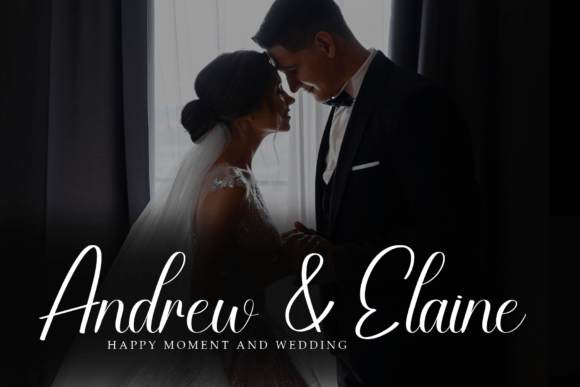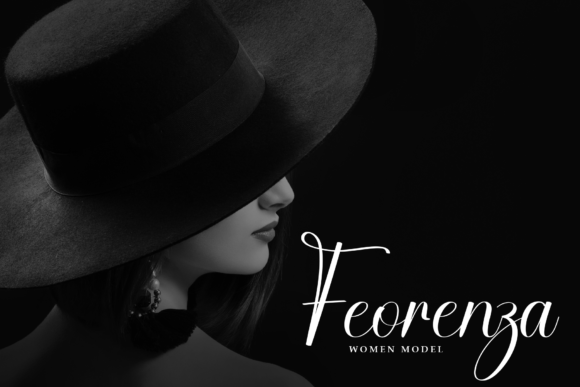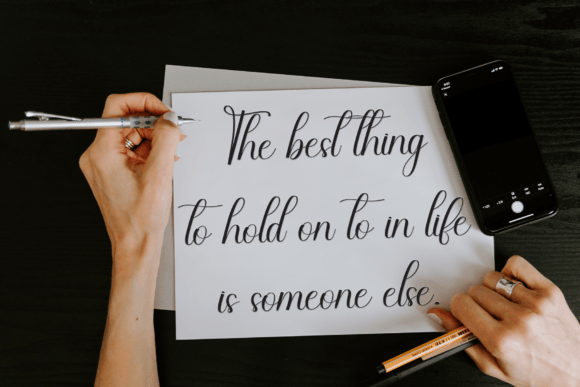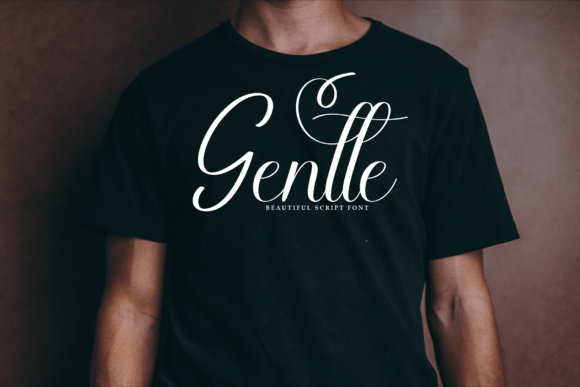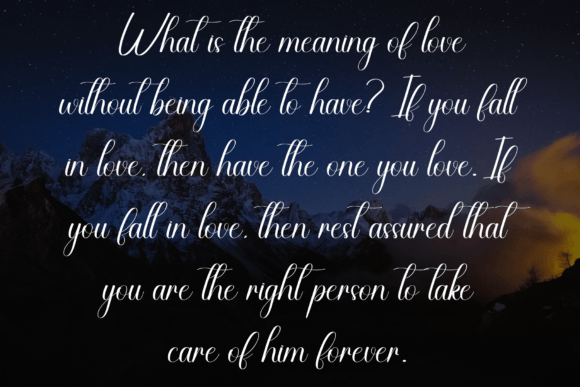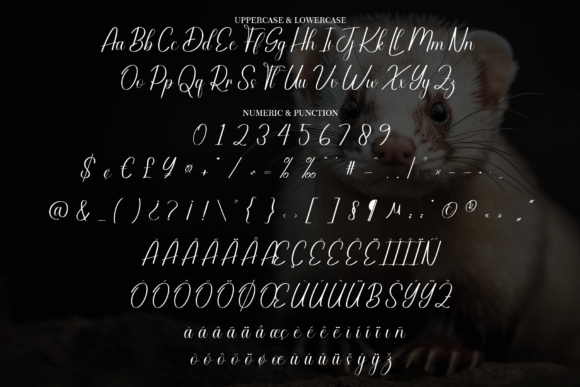
Introducing Badgers Font: Elevate Your Designs with Elegance and Flair
In the world of typography, a font can make or break a design. It’s the perfect blend of style, elegance, and personality that brings a creative vision to life. If you’re a designer, crafter, or simply someone who appreciates the art of beautiful lettering, you’re in for a treat. Say hello to Badgers Font, a delicate, elegant, and flowing handwritten font that’s about to become your new favorite companion in the world of design.
The Beauty of Badgers Font
Badgers Font is a true gem in the realm of typography. Its delicate and elegant appearance is characterized by beautifully balanced characters that exude a sense of refinement and sophistication. Each letter is carefully crafted to ensure that the font flows seamlessly, making it perfect for a wide range of design applications. Whether you’re working on a logo, a poster, a wedding invitation, or a digital project, Badgers Font is sure to add that special touch of elegance that sets your design apart.
One of the standout features of Badgers Font is its incredible versatility. Its classic yet modern aesthetic makes it an excellent match for a wide pool of designs. From rustic and vintage to modern and minimalist, Badgers Font adapts effortlessly to any style or theme. This versatility is a result of its well-balanced characters, which manage to convey both elegance and playfulness at the same time. Whether you’re aiming for a soft, romantic look or a bold, statement-making appearance, Badgers Font is up to the task.
Bring Your Ideas to Life
So, how can you use Badgers Font to bring your most creative ideas to life? The possibilities are endless! Imagine pairing Badgers Font with vibrant colors and playful illustrations for a whimsical children’s book, or using it on a elegant wedding invitation to set the tone for a sophisticated celebration. Perhaps you’re a brand looking to establish a unique identity; Badgers Font can help you achieve a memorable and stylish logo that captures the essence of your business.
Why Choose Badgers Font?
With so many fonts available, why choose Badgers Font for your next project? Here are a few compelling reasons:
- Elegance and Sophistication: Badgers Font offers a level of elegance that’s hard to find in other fonts. Its flowing lines and delicate appearance make it perfect for designs that require a touch of sophistication.
- Readability: Despite its elegant appearance, Badgers Font remains highly readable, even at smaller sizes. This makes it ideal for body text, headlines, and everything in between.
- Versatility: As mentioned earlier, Badgers Font is incredibly versatile. It can be used in a variety of contexts, from digital media to print materials, without losing its charm.
- Uniqueness: While Badgers Font has a classic feel, it also possesses a unique character that sets it apart from more traditional fonts. This ensures your designs stand out in a crowded marketplace.
Badgers Font is more than just a font; it’s a design companion that can elevate your creative projects to new heights. Its delicate, elegant, and flowing appearance, combined with its versatility and readability, make it an excellent choice for designers and crafters alike. Whether you’re working on a personal project or a client’s brief, Badgers Font is sure to bring a touch of elegance and sophistication that makes your designs truly stand out. So why wait? Download Badgers Font today and watch your designs come alive with elegance and flair!